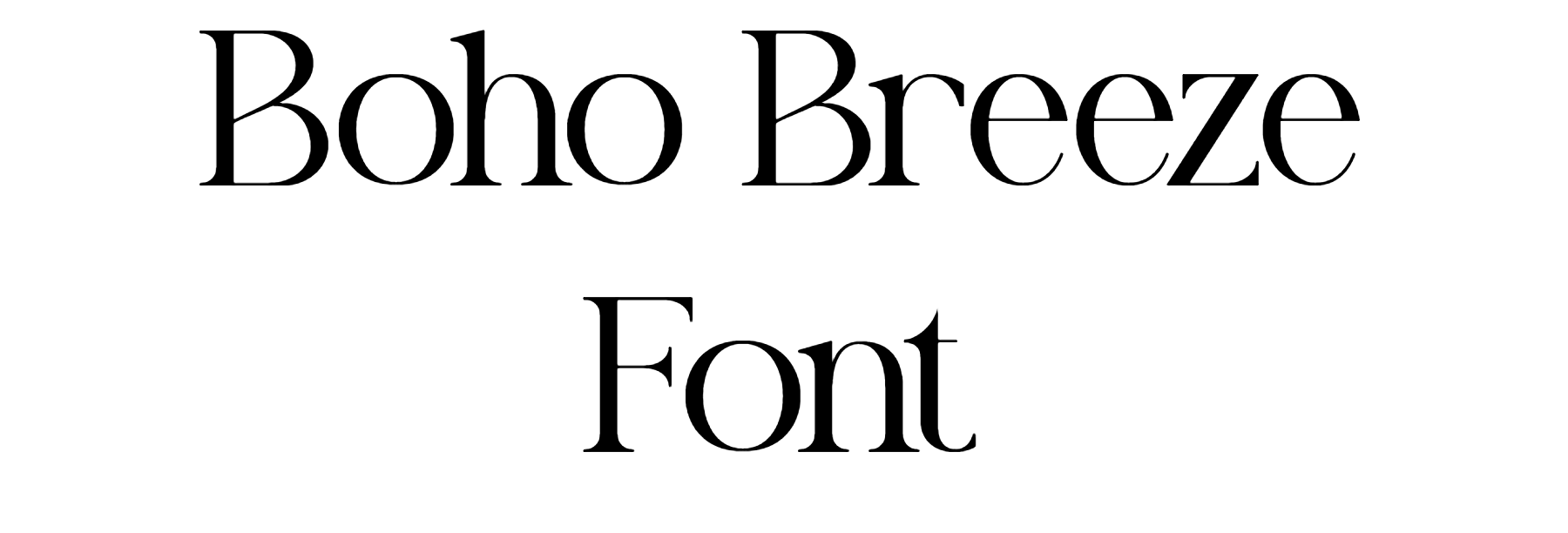
Boho Breeze
Boho Breeze is a serif font created by Akhmad Husain Rifa'i and released through Sohel Studio (2023). Small strokes at the ends of its letters (the serifs) give it a classic, trustworthy look. It's a free download, and you can try it with your own text in the preview above first.
- Languages: English, Spanish and Italian
- OpenType features: Ligatures (including optional ones) and stylistic alternates
With complete upper and lowercase letters and all ten digits, Boho Breeze is ready for real wording, not just a single headline. Everyday marks like &, !, ? and @ are there too. Thanks to its accented letters, it also works for Spanish and Italian, not just English.
Where Boho Breeze Works Best
Think of Boho Breeze for book covers, magazine headlines and classic branding. Serif fonts shine in headlines and printed text. For long paragraphs on phones, check that it still reads well at small sizes.